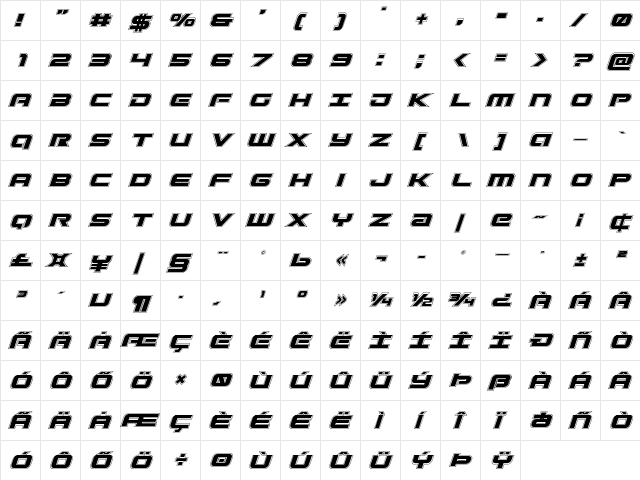
Gunship Academy Italic Italic
Design Context for Gunship Academy Italic Typeface
Gunship Academy Italic is a composed and adaptable typeface that performs quietly and consistently across a wide range of design contexts. Its italic angle brings a sense of urgency and motion to the letterforms.
Pro Tip: Try Gunship Academy Italic for annotation and caption copy alongside an upright companion — the contrast in angle creates a dynamic but ordered typographic system.